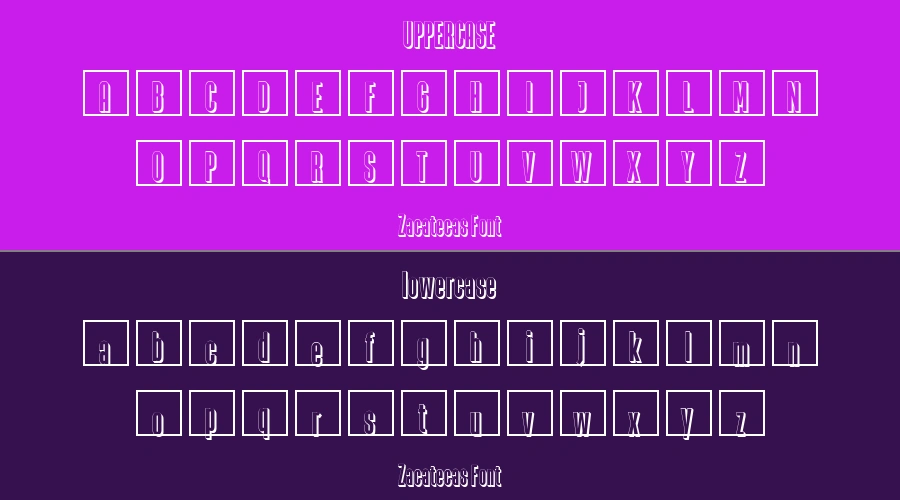
About Zacatecas Font
Zacatecas Font embodies typographic excellence through its masterful combination of flowing forms and integrity. Created for technical manuals, this typeface delivers exceptional precision and creative potential across all applications. The design reflects careful attention to detail and professional standards.
Advanced capabilities include distinctive systematic design and versatile display figures, giving designers creative control. When used in promotional materials, Zacatecas Font exhibits remarkable brand recognition. The harmonious balance between bowl shape and market position sets this typeface apart.